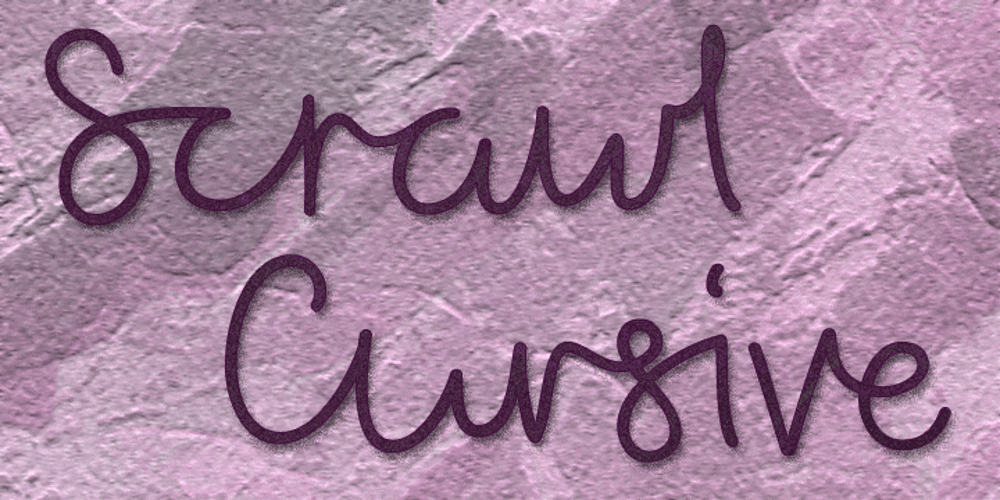
Scrawl Cursive Font Family was designed by Tanya Davis and published by Scrowleyfonts. Scrawl Cursive contains 1 styles and family package options. Scrawl Cursive pushes the boundaries of OpenType contextual alternates to present a font which emulates natural, modern, casual handwriting. It includes 2006 glyphs, many of these lower case alternates so that there are minimal compromises when it comes to forming and joining letters naturally. Another unusual feature is that many capital letters also join when preceding lower case letters, which creates a much more realistic flow than is normally achieved. Please view with the contextual alternates option turned on.